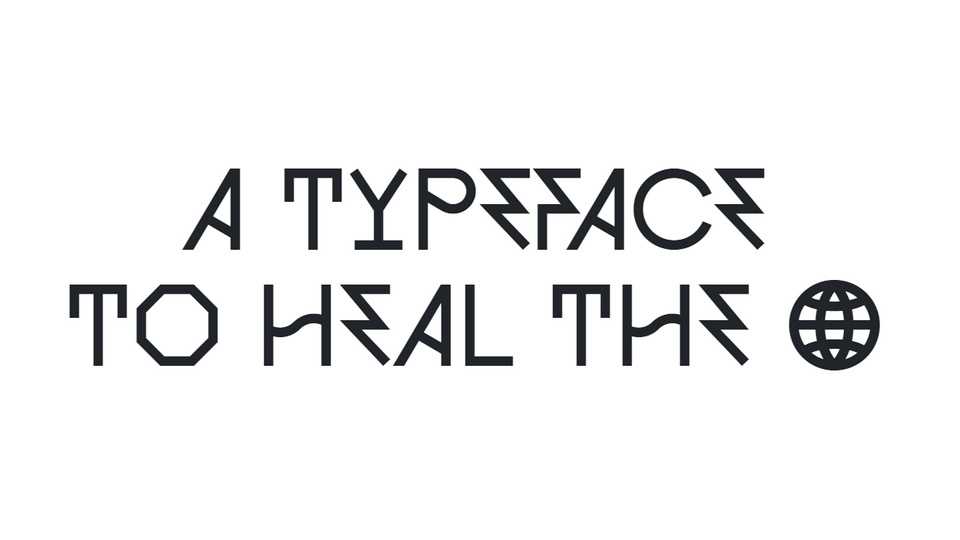
Download Heal the Web font, an experimental geometric typeface designed for everyone. While preserving the original edgy character the goal became to create an entire font with improved legibility and complex Lettering for typographic experiments.